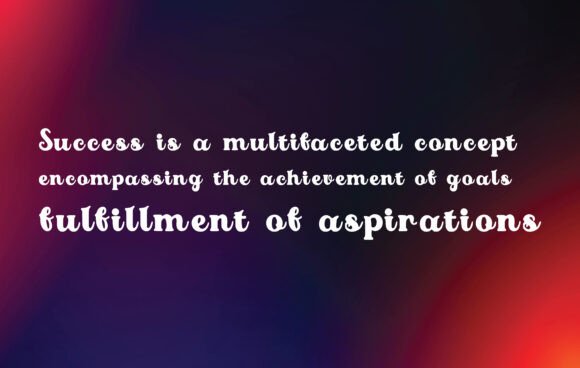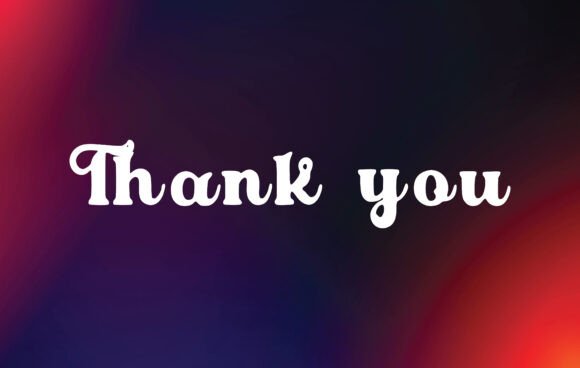
The Magic of Brycen Font: Elevate Your Designs with this Lovely Handwritten Font
I’ll never forget the time I was working on a branding project for a new coffee shop. I had a clear vision of what I wanted to achieve, but somehow, the design just wasn’t coming together. The font I was using felt too generic, too boring. I needed something that would capture the warmth and coziness of the coffee shop, something that would make the brand stand out. That’s when I stumbled upon Brycen Font. ✨
Brycen is a lovely and beautiful handwritten font that has the potential to take your creative ideas to the highest level. It’s the best choice for creating eye-catching logos, branding, and quotes. In this article, I’ll share my honest review of Brycen Font, provide a practical guide on how to use it, and explore similar fonts that you might love.
Honest Review: What I Love and What I Don’t
- 💕 Beautifully crafted: Brycen Font is a stunning handwritten font that exudes warmth and personality.
- ✅ Versatile: It can be used for a wide range of design projects, from logos and branding to quotes and social media graphics.
- 🎨 Highly customizable: With OpenType features and glyphs, you can experiment with different styles and variations.
- 📈 Scalable: Brycen Font looks great at any size, from small captions to large headlines.
- ⚠️ Limited use in formal contexts: While Brycen Font is perfect for creative projects, it may not be the best choice for formal or corporate designs.
- 🤔 Some characters may require adjustments: Depending on the design, some characters may need to be adjusted for optimal spacing and alignment.
The Story Behind Brycen Font: Designer Inspiration
Brycen Font was designed with love and care by a talented type designer who wanted to create a font that would inspire creativity and bring joy to designers. The font is named after the designer’s son, Brycen, who was the inspiration behind the font’s friendly and approachable feel.
| What is Brycen Font best used for? | Brycen Font is perfect for creative projects, branding, logos, and quotes. |
| Is Brycen Font suitable for formal designs? | While Brycen Font is versatile, it may not be the best choice for formal or corporate designs. |